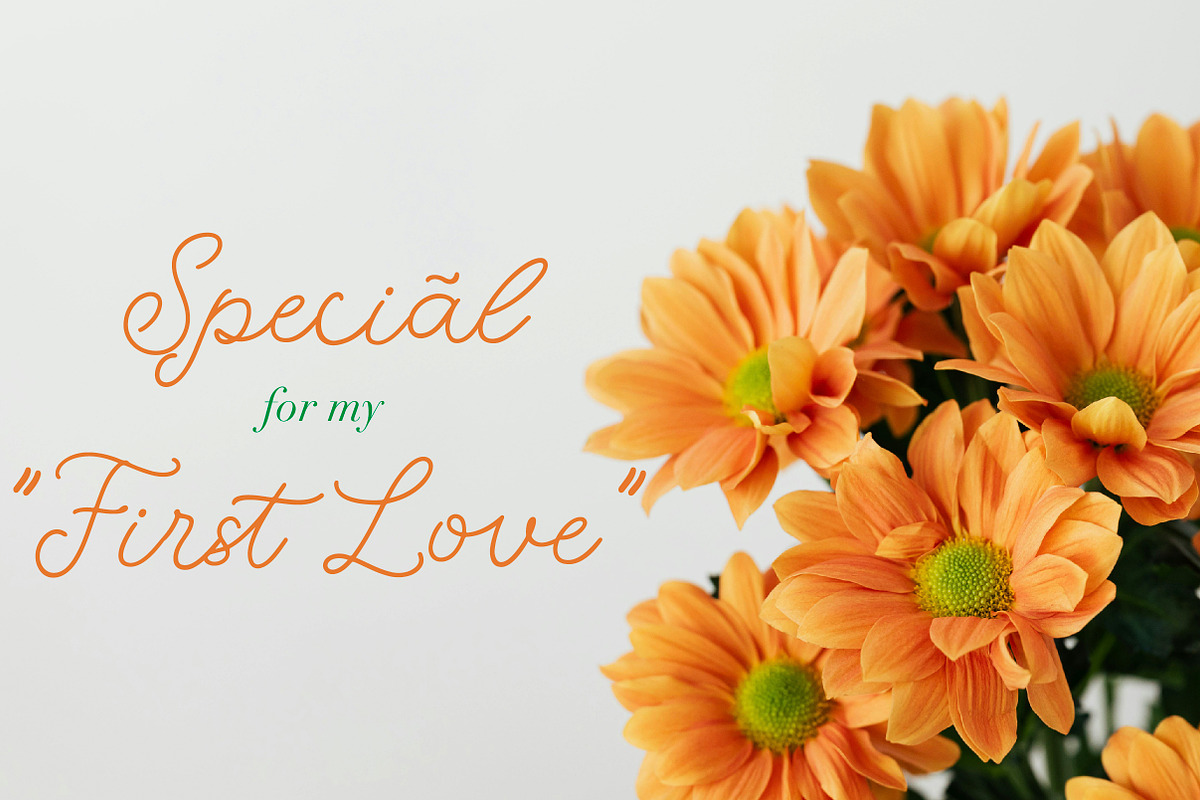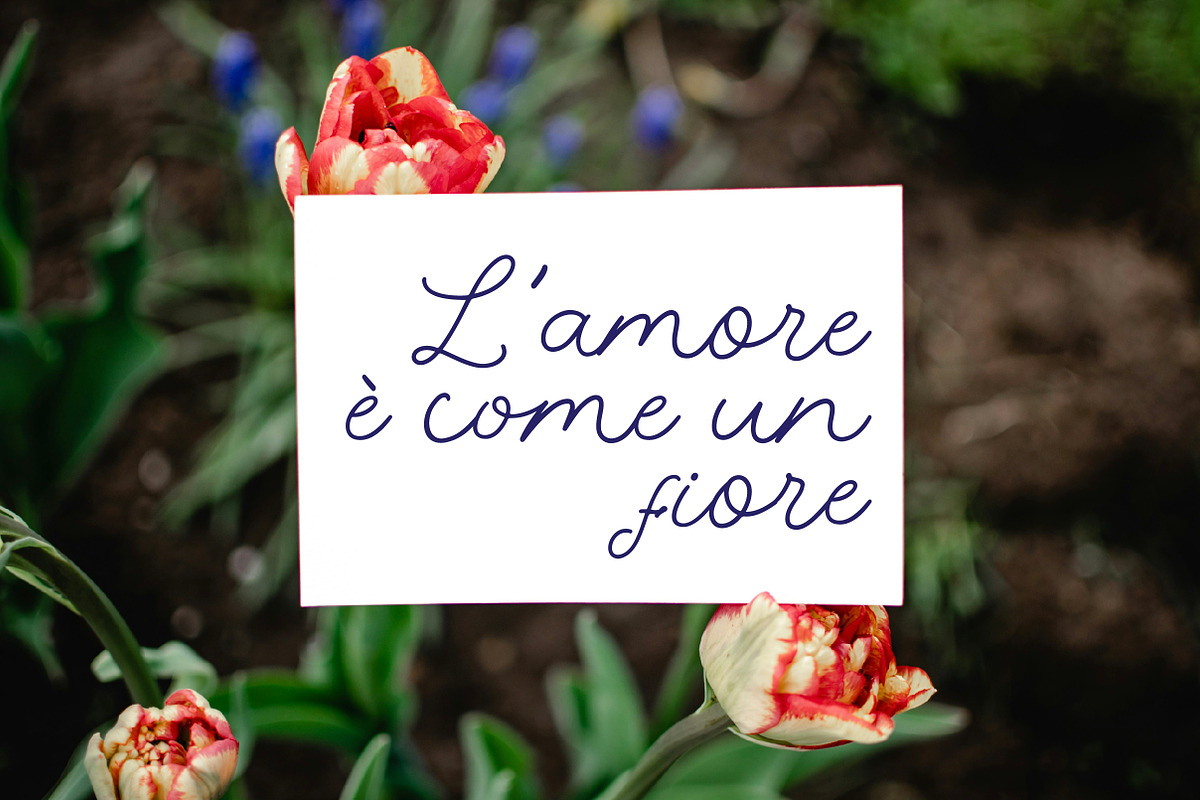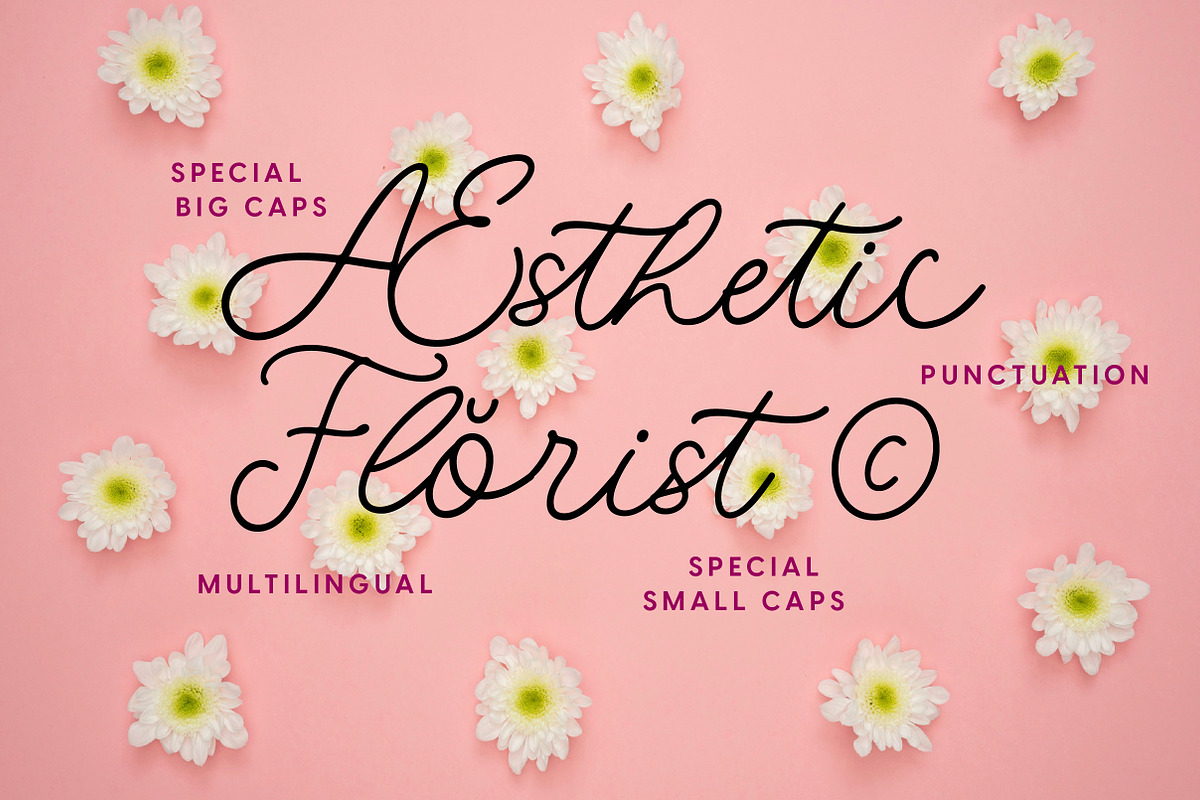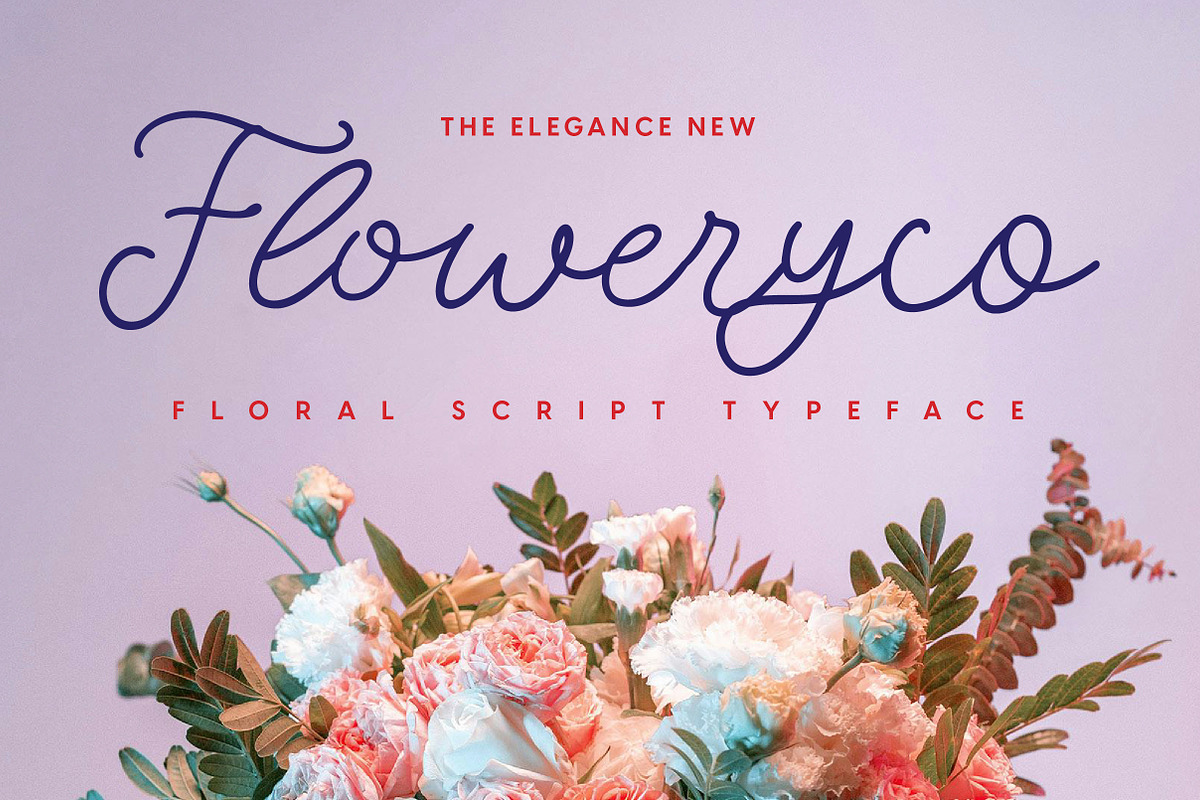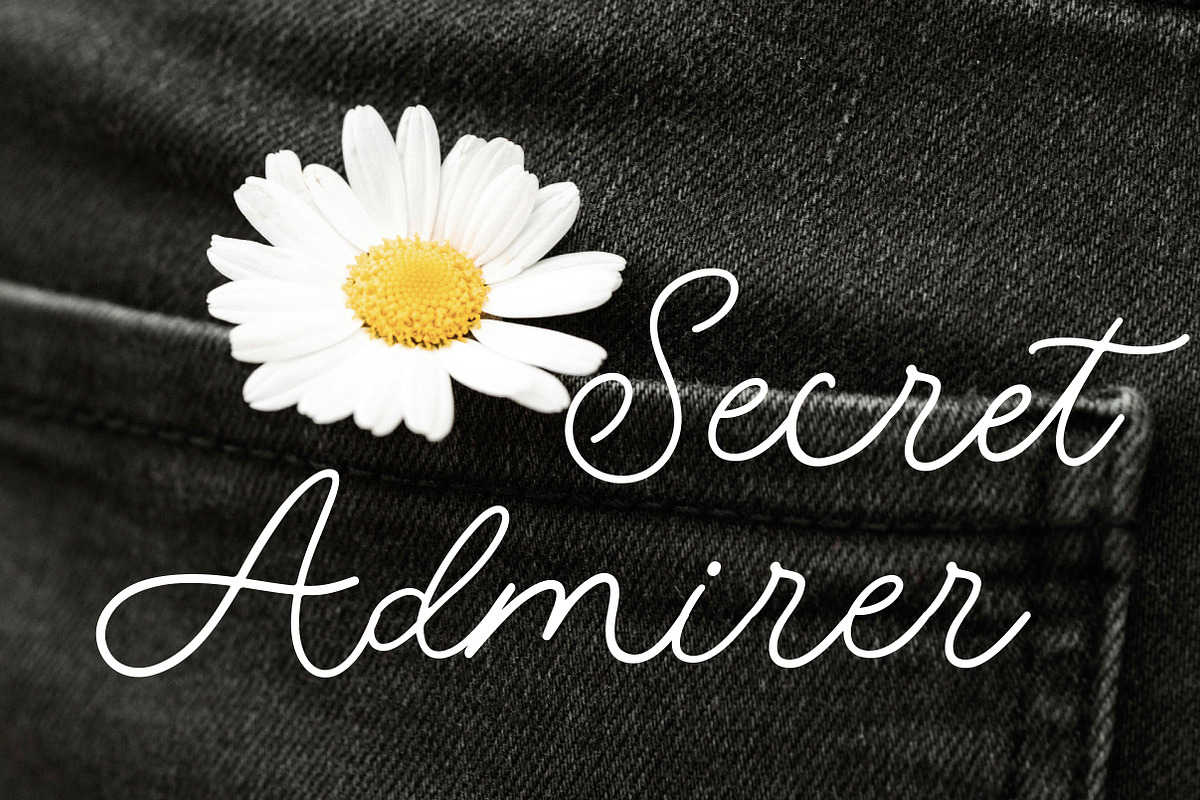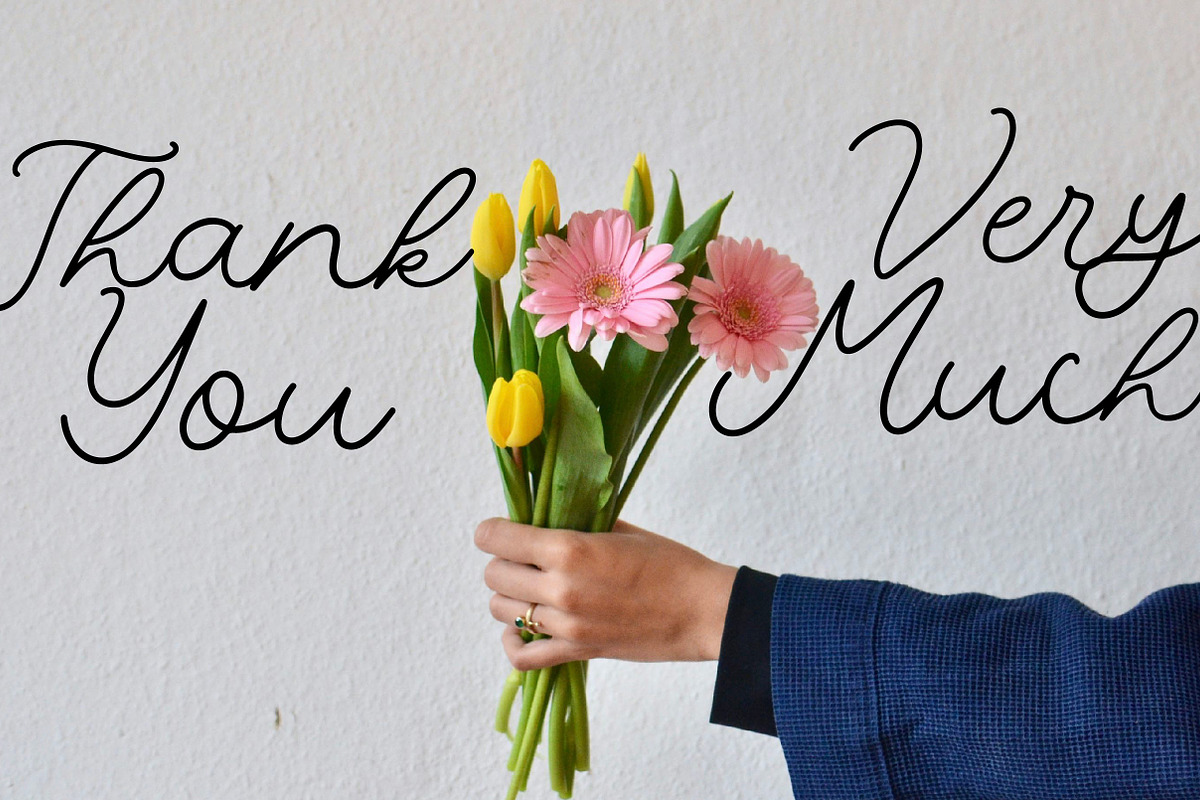
Floweryco
Floweryco — A Font Inspired by the Art of Floristry
Embrace the elegance of nature with Floweryco, a typeface that blossoms with charm and grace. Inspired by the delicate artistry of florists, this font captures the fluid curves of petals, the organic flow of vines, and the timeless beauty of floral arrangements.
Floweryco blends soft, flowing strokes with refined details, making it perfect for:
Wedding invitations and event branding
Boutique logos and luxury packaging
Floral shop signage and gift cards
Social media graphics that need a fresh, botanical touch
With its harmonious balance of curves and structure, Floweryco evokes feelings of warmth, creativity, and natural beauty. Each letter is designed to flourish, creating a visual bouquet that captivates and inspires.
Special big & small caps
Punctuation and numbering
Let your designs bloom with Floweryco, where every word feels like a flower in full bloom.